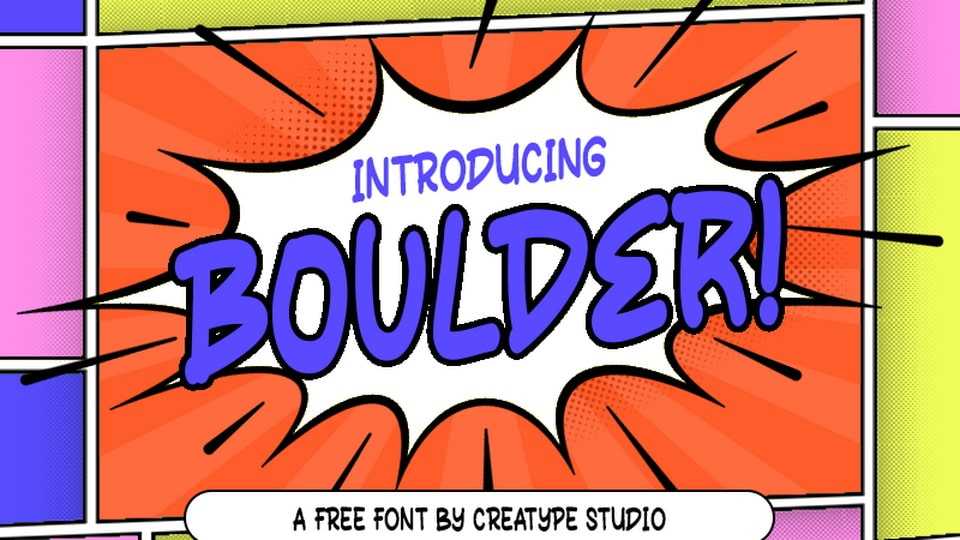
Download Boulder font, a playful and fun hand-drawn typeface designed to bring energy and humor to your comic creations with its lively, rounded strokes.